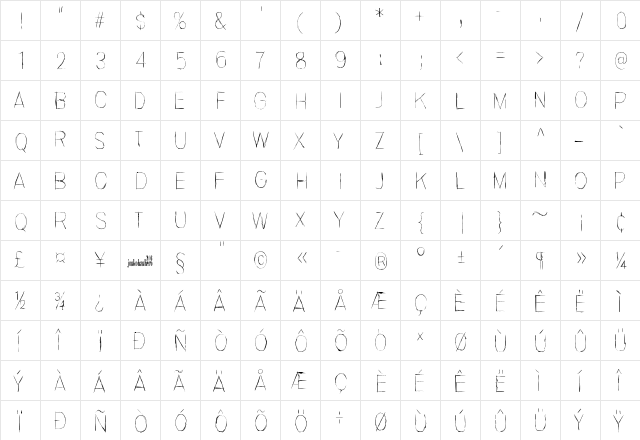
Invisiblerror, Fast Regular
Design Context for Invisiblerror, Fast Typeface
Invisiblerror, Fast is a composed and adaptable typeface that performs quietly and consistently across a wide range of design contexts.